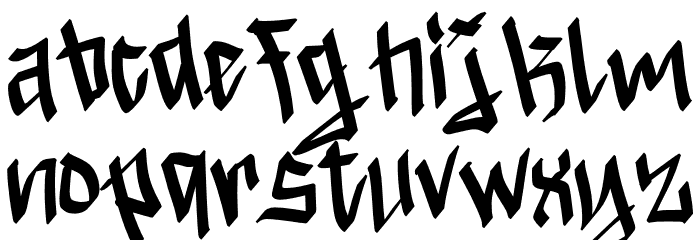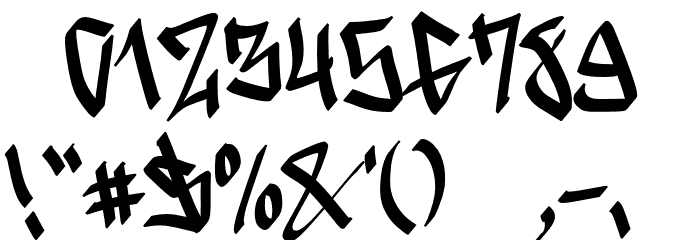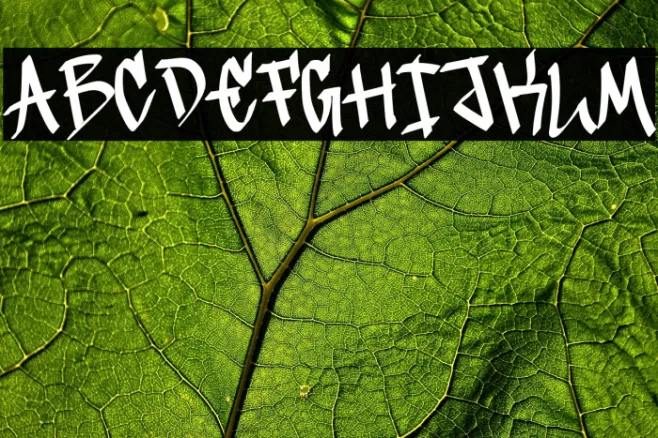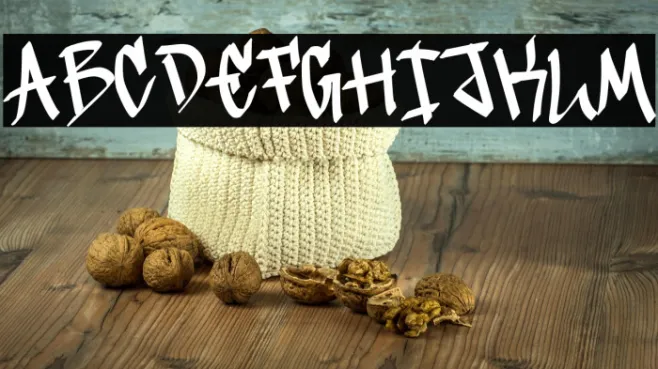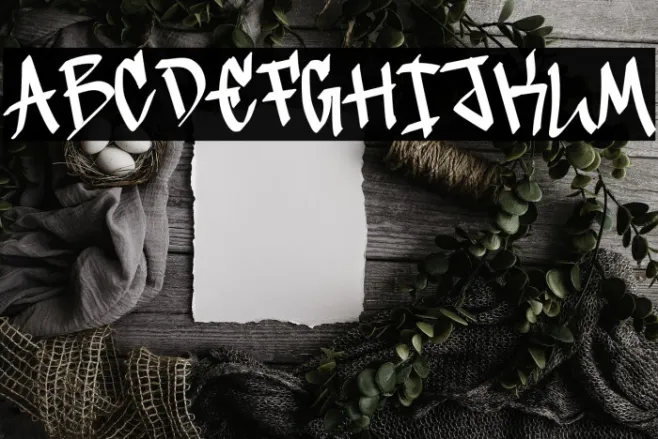
Gin Fight Font
This font exhibits a bold and dynamic style, characterized by sharp, angular strokes and a graffiti-like appearance. The uppercase and lowercase letters share a consistent edgy aesthetic, with exaggerated curves and points that convey a sense of movement and energy. The numbers and special characters maintain this theme, ensuring a cohesive look across all elements. The font's design is reminiscent of street art, making it ideal for projects that require a bold, rebellious, or urban feel.
A bold, graffiti-inspired font with sharp, angular strokes.
- Font: Gin Fight
- Proposed Projects: Ideal for street art designs, music album covers, urban-themed posters, and edgy branding projects.
- Overall Style: Modern, Urban
- Use Case: Logos, Posters, Album Covers